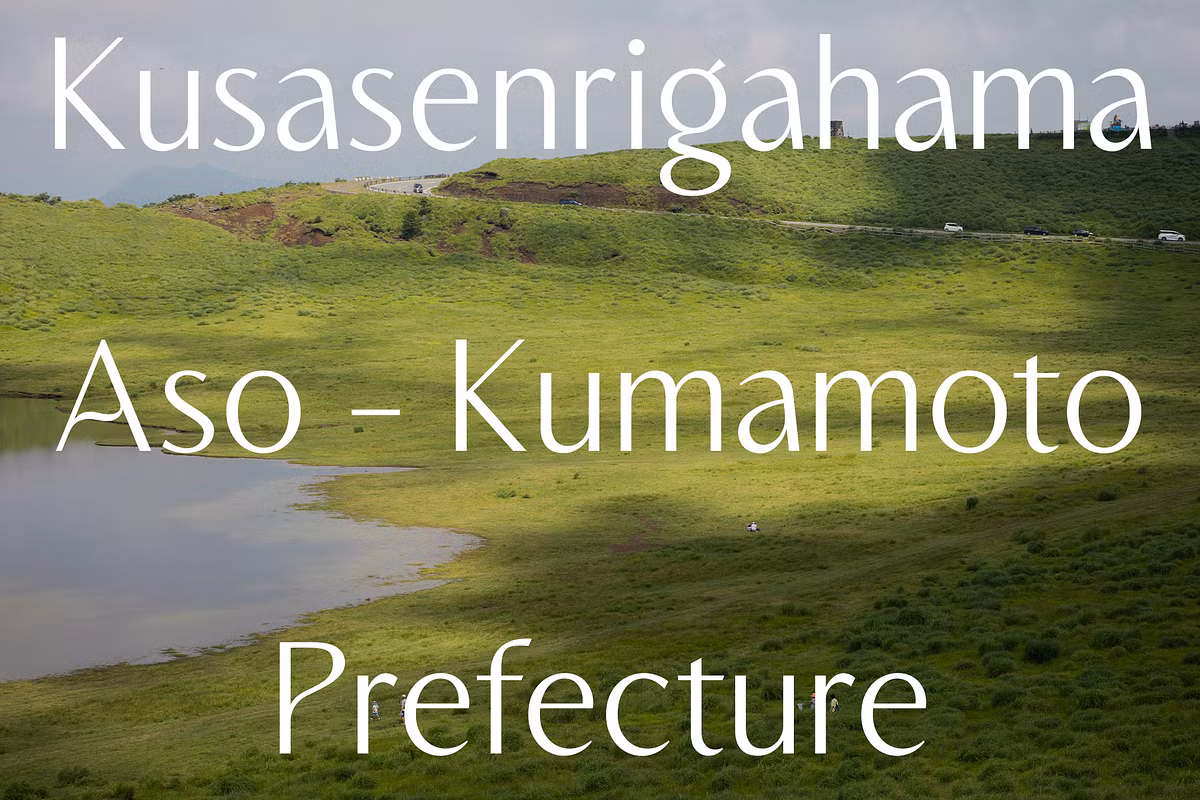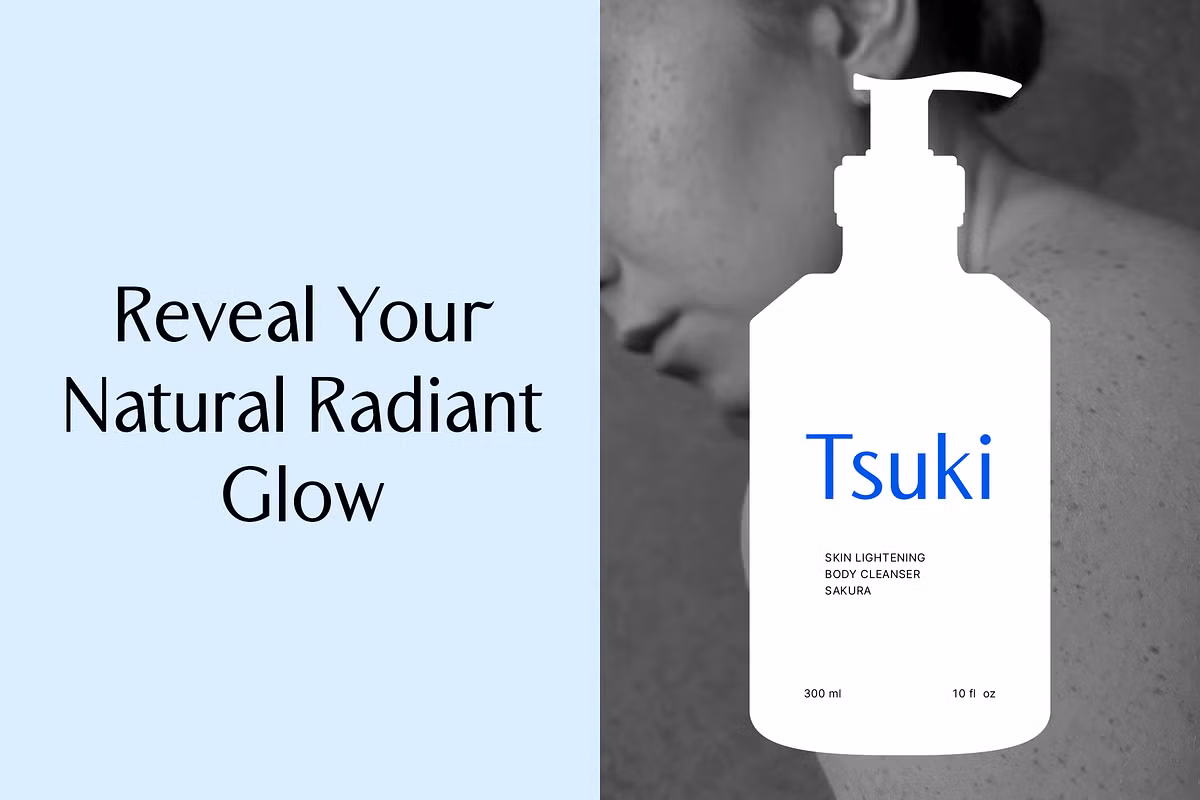
ED Amakusa: Versatile Modern Display Font for Eye-Catching Typography
ED Amakusa is a really cool font that catches your eye with its simple, yet elegant look. It has clean lines and curves that are balanced just right, making it perfect for creating typography that looks sophisticated and professional. You can use it to make a logo, poster, or website that really stands out. The font is versatile and unique, which is great for making a strong impression with your visual design. Whether you’re working on a project that needs a modern touch or just want to add some flair to your design, ED Amakusa is a great choice. It’s perfect for creating eye-catching visuals that communicate your message with style and refinement.
Design Style of ED Amakusa
The ED Amakusa design has a really modern look that’s simple, yet sophisticated. It’s got clean lines that make it look minimalistic, so it works well with lots of different design styles. The curves are elegant and add a bit of flair, keeping your typography stylish without going over the top. This makes it a great choice for many types of projects, as it’s versatile and easy to use. The overall effect is a design that’s both sleek and refined, perfect for creating a professional and polished look.
ED Amakusa is a pretty versatile font, and that’s because of its well-balanced proportions. What makes it really useful is that it’s still easy to read even when it’s big, which is perfect for things like headlines and branding. This balance is key, whether you’re using it in print or digital, because it helps get your message across clearly and effectively. It’s designed to work well in all sorts of situations, and that’s what makes it so useful for communicating your ideas.
Character Sets and Font Features
Having three different weights – Regular, Semibold, and Bold – gives you more options to make your designs look better. You can use these weights to highlight important things or to separate different kinds of content, and still keep your whole project looking consistent. This way, you can create a clear order of importance in your designs, which makes them easier to understand and more visually appealing.
ED Amakusa has a lot of features that make it really useful for designers and typographers. One of the best things about it is that it can handle lots of different languages and characters, which means it can reach a much bigger audience. This is especially great for big brands or projects that need to appeal to people who speak different languages. It’s a really versatile tool that can help designers create content that works for people all around the world. With its multilingual support, ED Amakusa is perfect for anyone who wants to make sure their message gets across to everyone, no matter where they’re from or what language they speak.
Use Cases for ED Amakusa
Moreover, ED Amakusa includes stylistic sets and both standard and discretionary ligatures. These features offer designers the flexibility to experiment with typographic styles, enhancing the overall aesthetic of their projects. The ligatures help in creating smoother text flow, which is especially beneficial in longer texts where readability is essential.
This font has lots of extra features like fractions, ordinals, currency symbols, and punctuation, which makes it perfect for designing all sorts of things. So, if you’re making a financial report, a cookbook, or a magazine, ED Amakusa helps you create typography that’s both useful and looks great. It’s really versatile and can be used for many different projects, giving you the freedom to focus on making your design look amazing. With all these features, you can create a professional-looking design that’s easy to read and understand, whether you’re working on a simple project or something more complex.
- Branding: The modern aesthetic of ED Amakusa makes it perfect for logo design, helping brands convey a contemporary and professional image.
- Logos: Its distinctive character ensures that logos stand out, making a memorable impression on potential customers.
- Headlines: The thick and heavy fonts of ED Amakusa are perfect for grabbing attention in headlines, whether it’s in a magazine, on a website, or in an advertisement, making it easier to engage with your readers and draw them in.
- Posters: For promotional materials, the clean lines and balanced proportions make your message clear and impactful.
- Packaging: The font’s elegance lends itself well to product packaging, enhancing the perceived value of products.
- Editorial Layouts: The versatility in weights allows for effective typography in editorial designs, maintaining a cohesive look across articles.
- Social Media: Utilize ED Amakusa in social media graphics to create striking posts that capture attention in crowded feeds.
- Modern Web Design: Its readability and contemporary style make it a great choice for website typography, ensuring that content is both attractive and easy to digest.